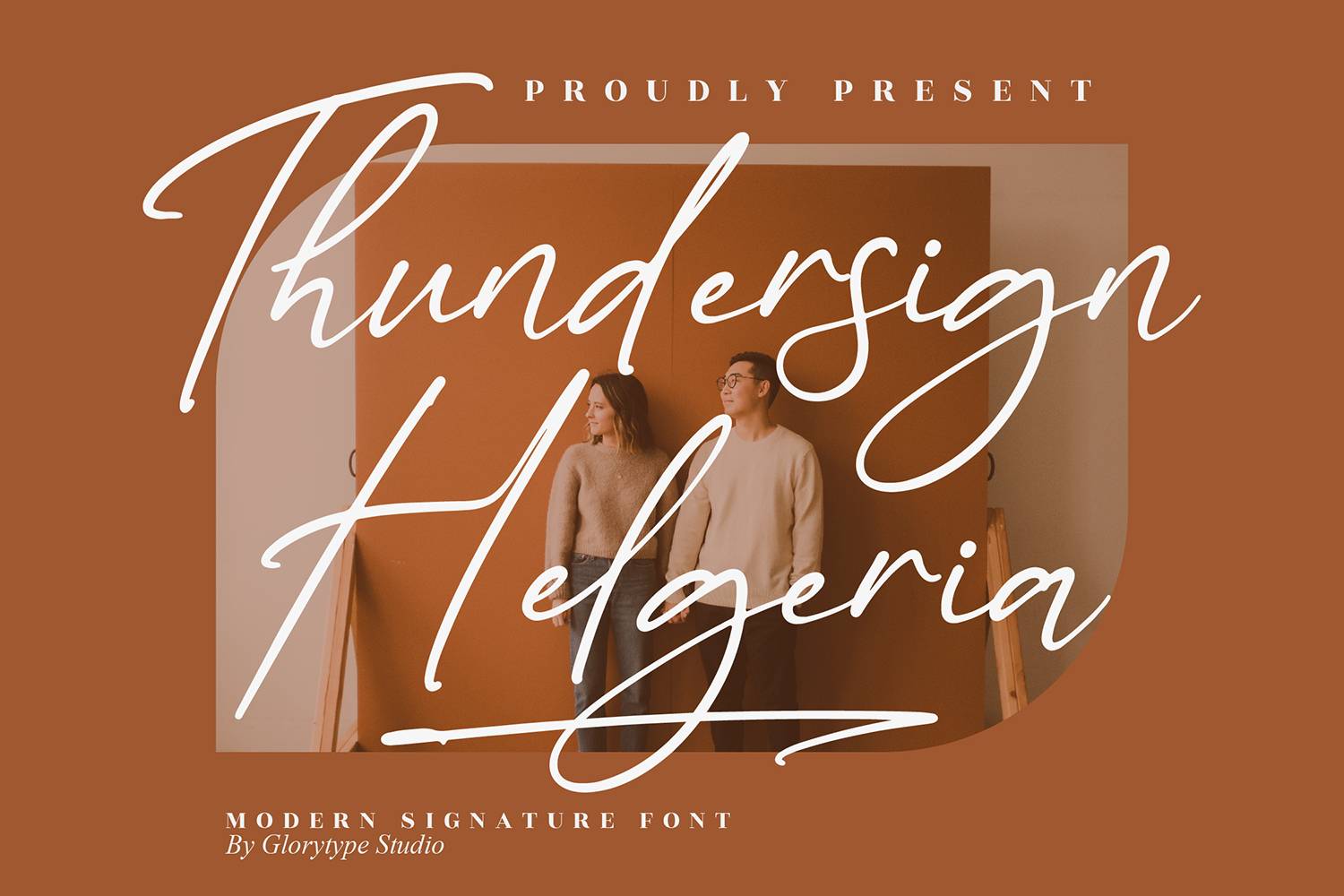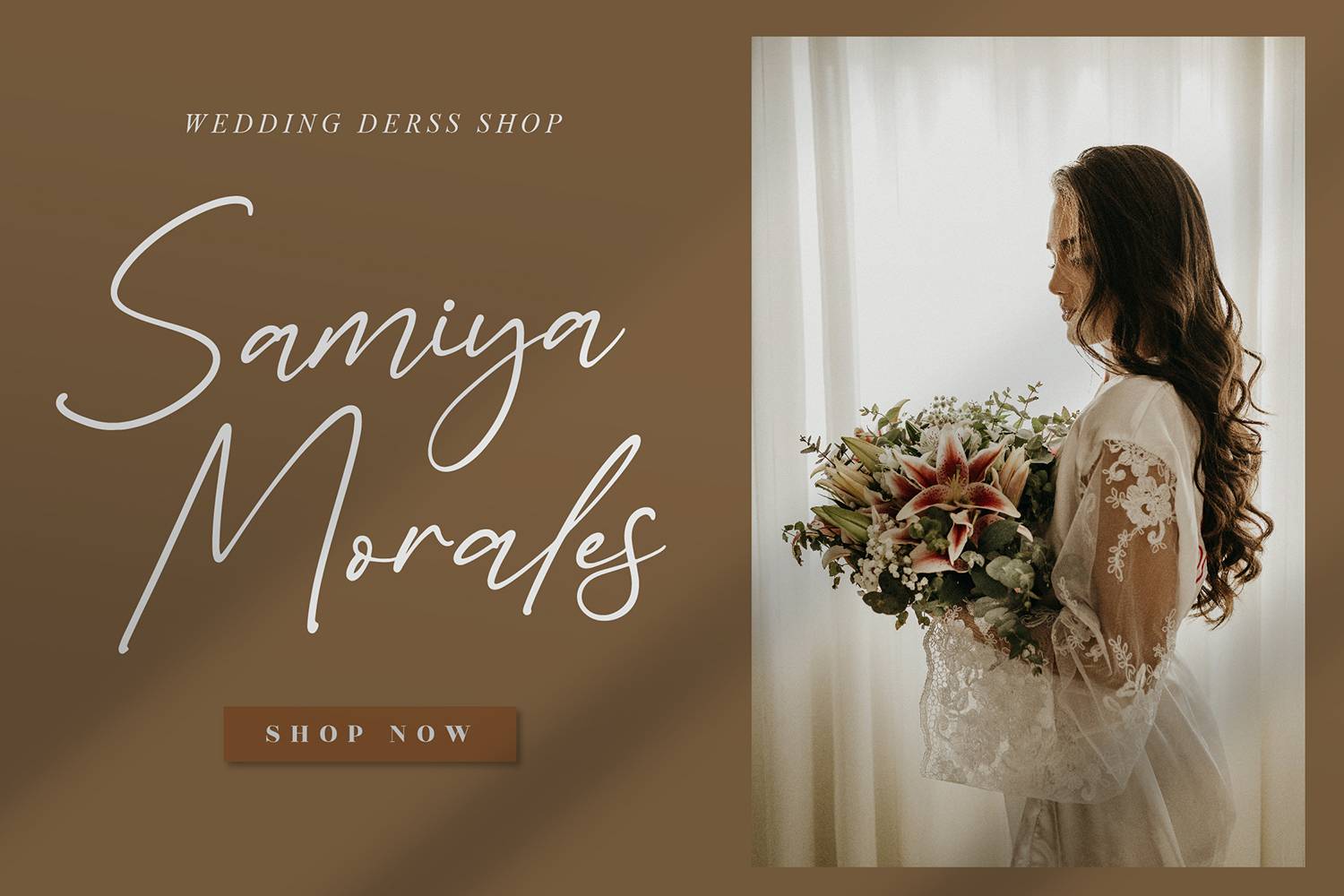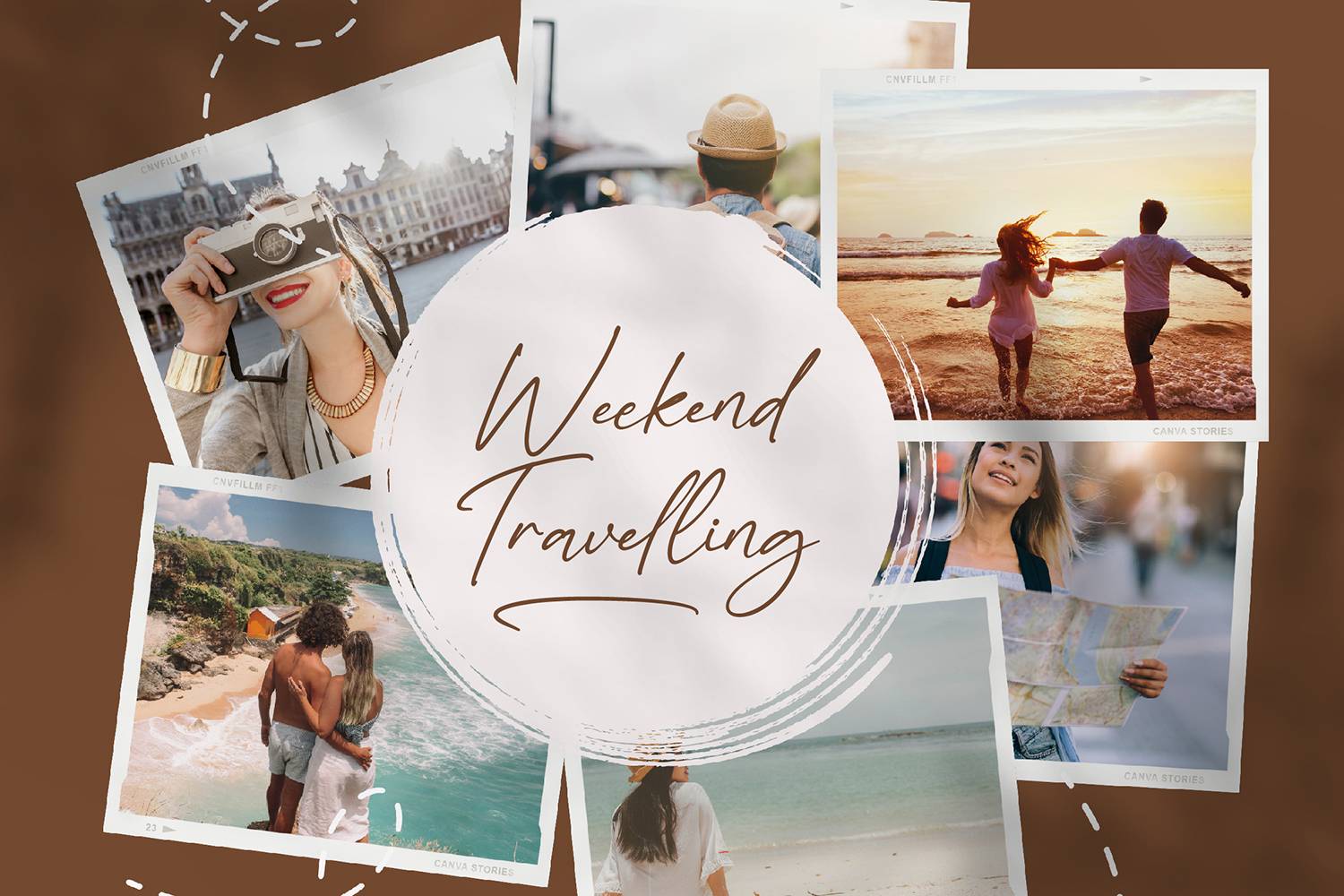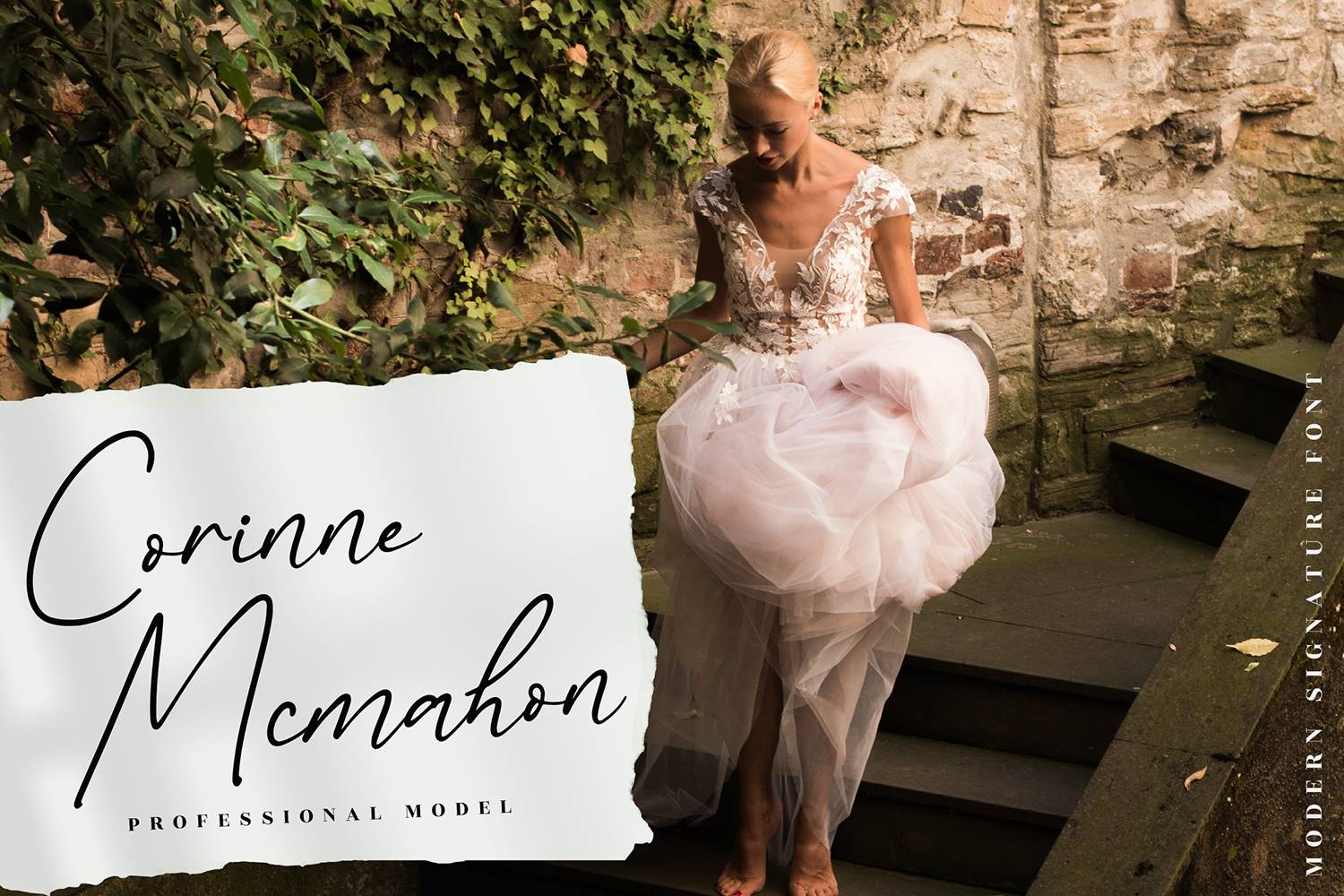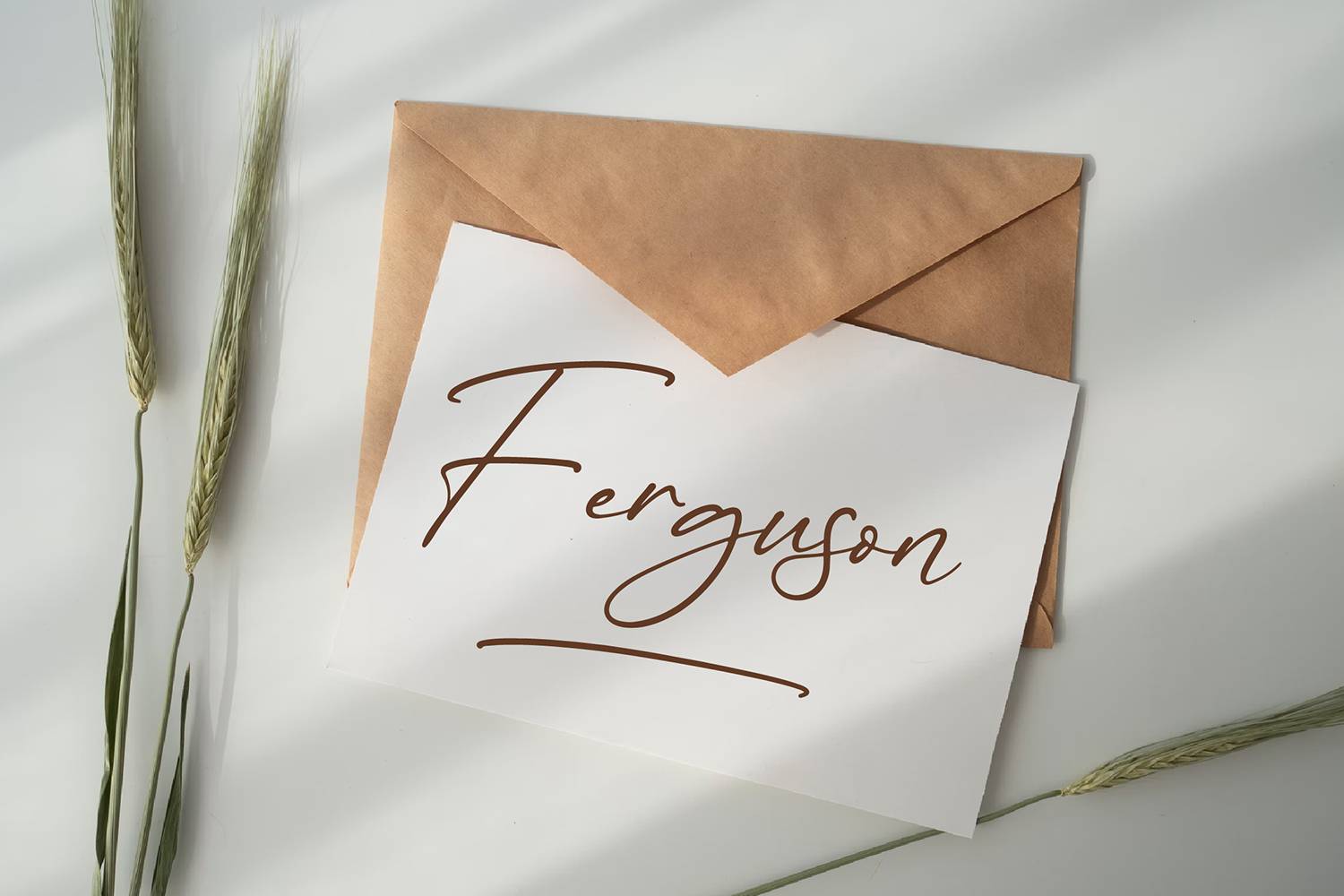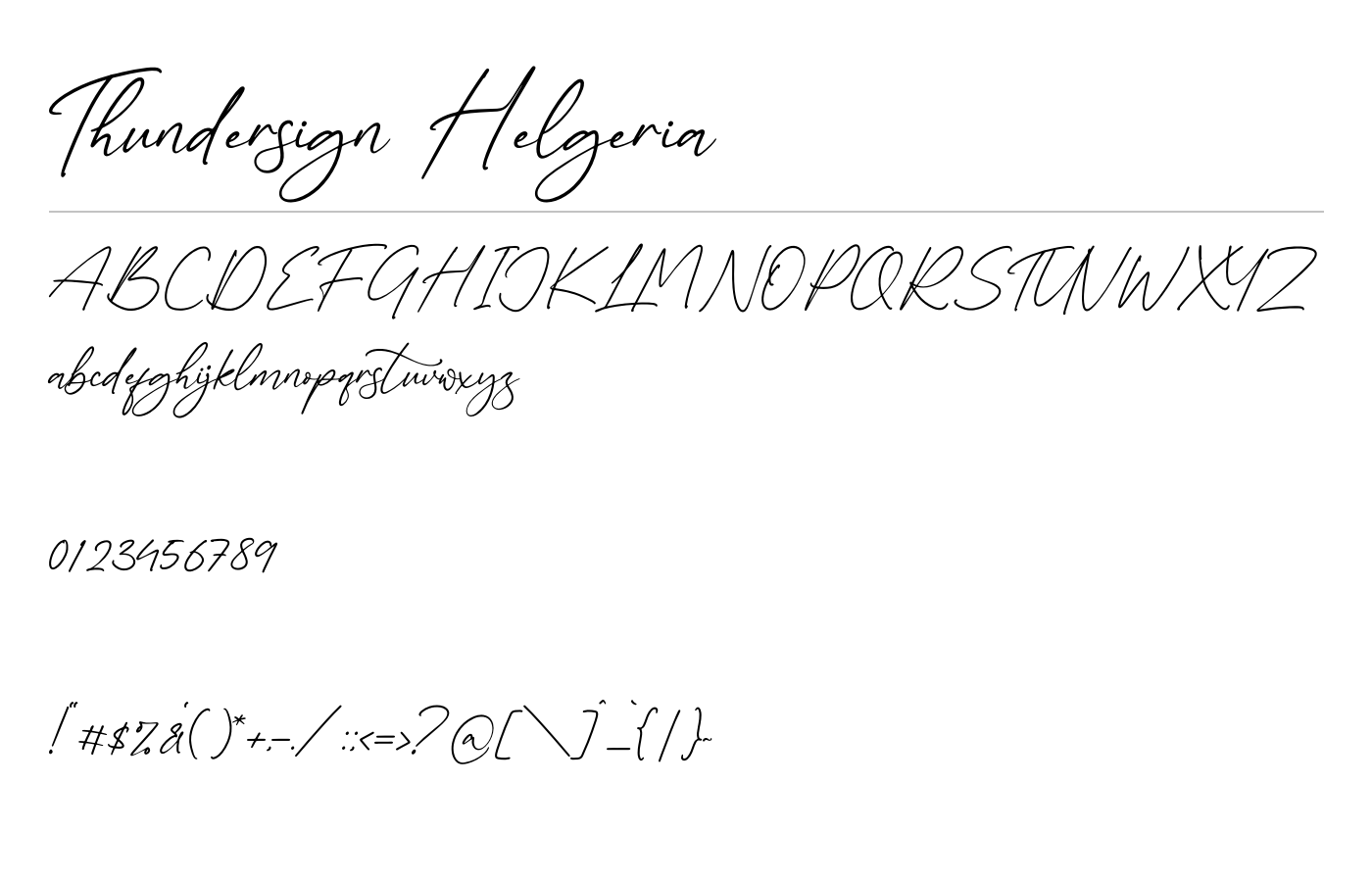
Thundersign Helgeria is an elegant, handwritten script font featuring slender, flowing strokes that convey a delicate yet expressive personality. Its airy, slightly irregular letterforms create a natural, personal feel, making it ideal for branding, invitations, and projects that seek a sophisticated and intimate touch. This font works wonderfully in creative and fashion contexts where refined, handwritten elegance is desired.
Thundersign Helgeria Font
About Thundersign Helgeria Font